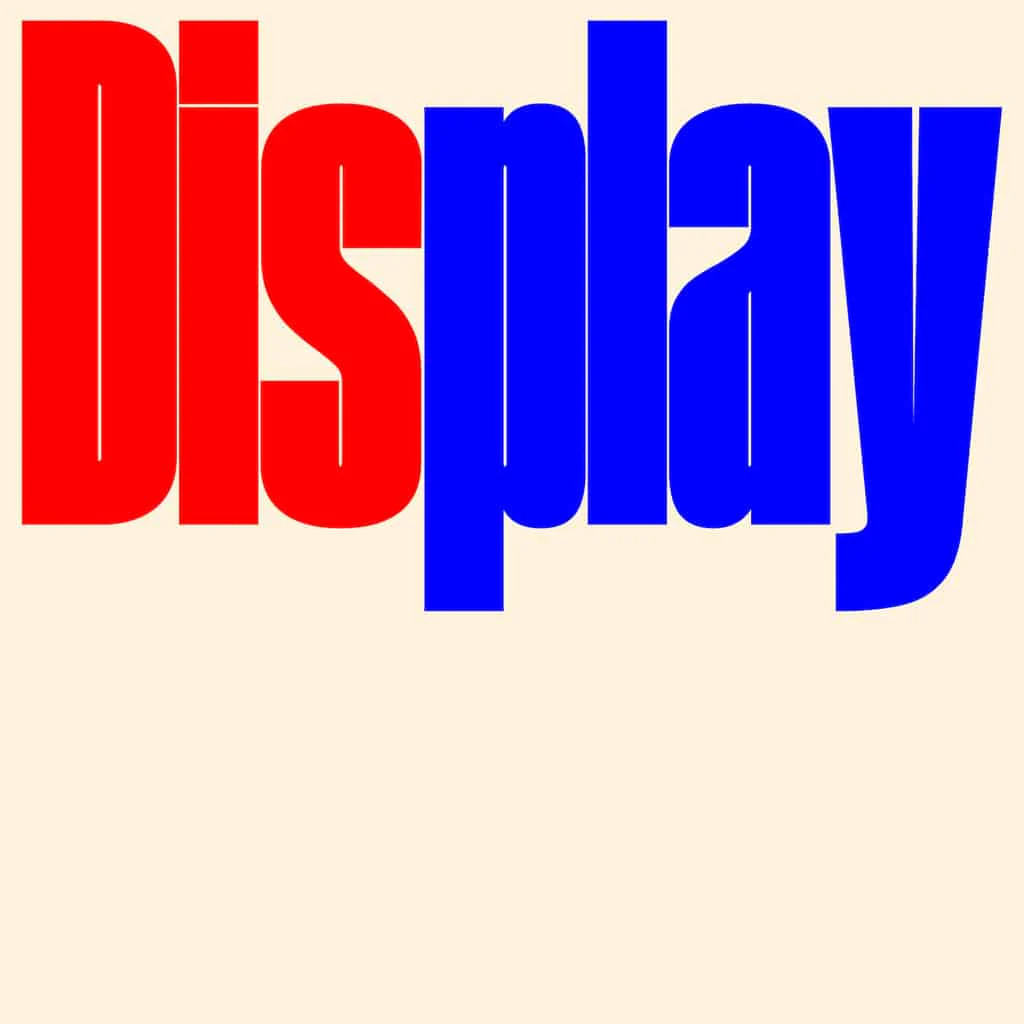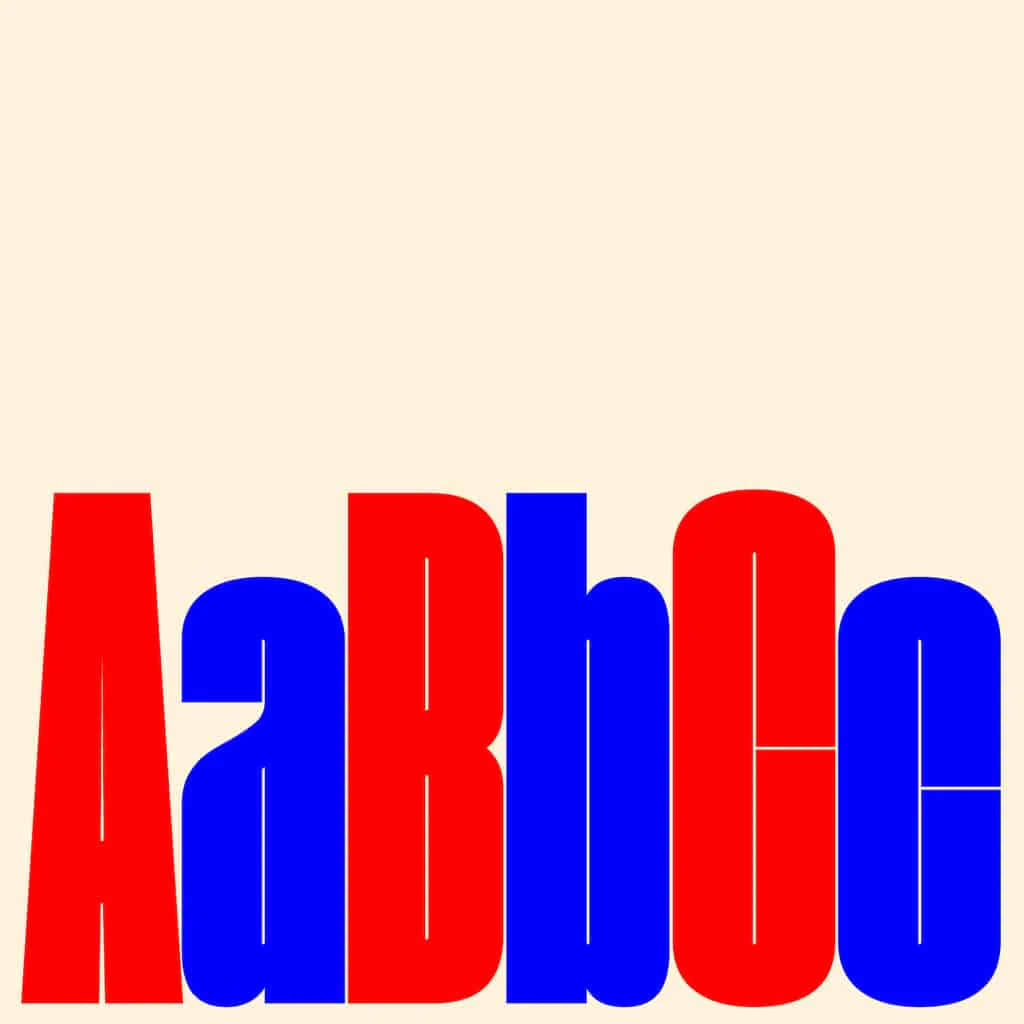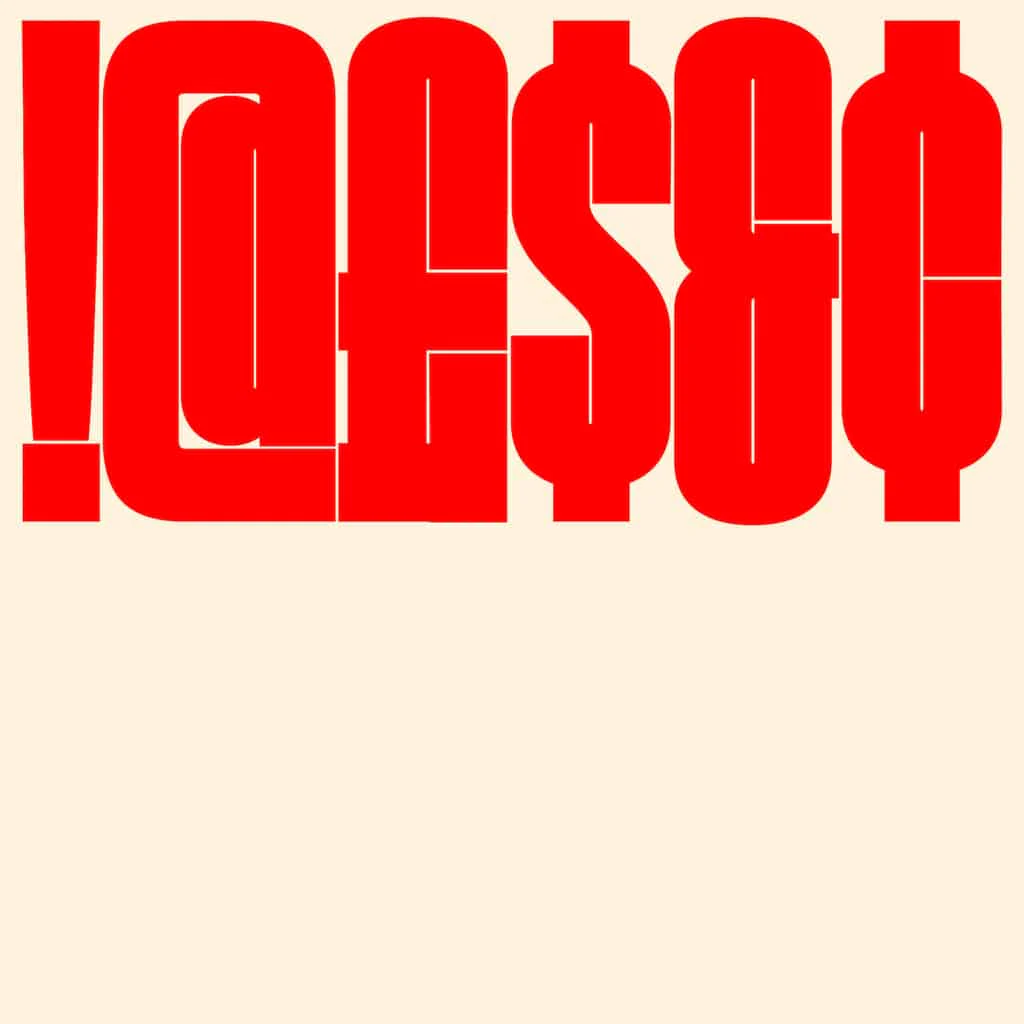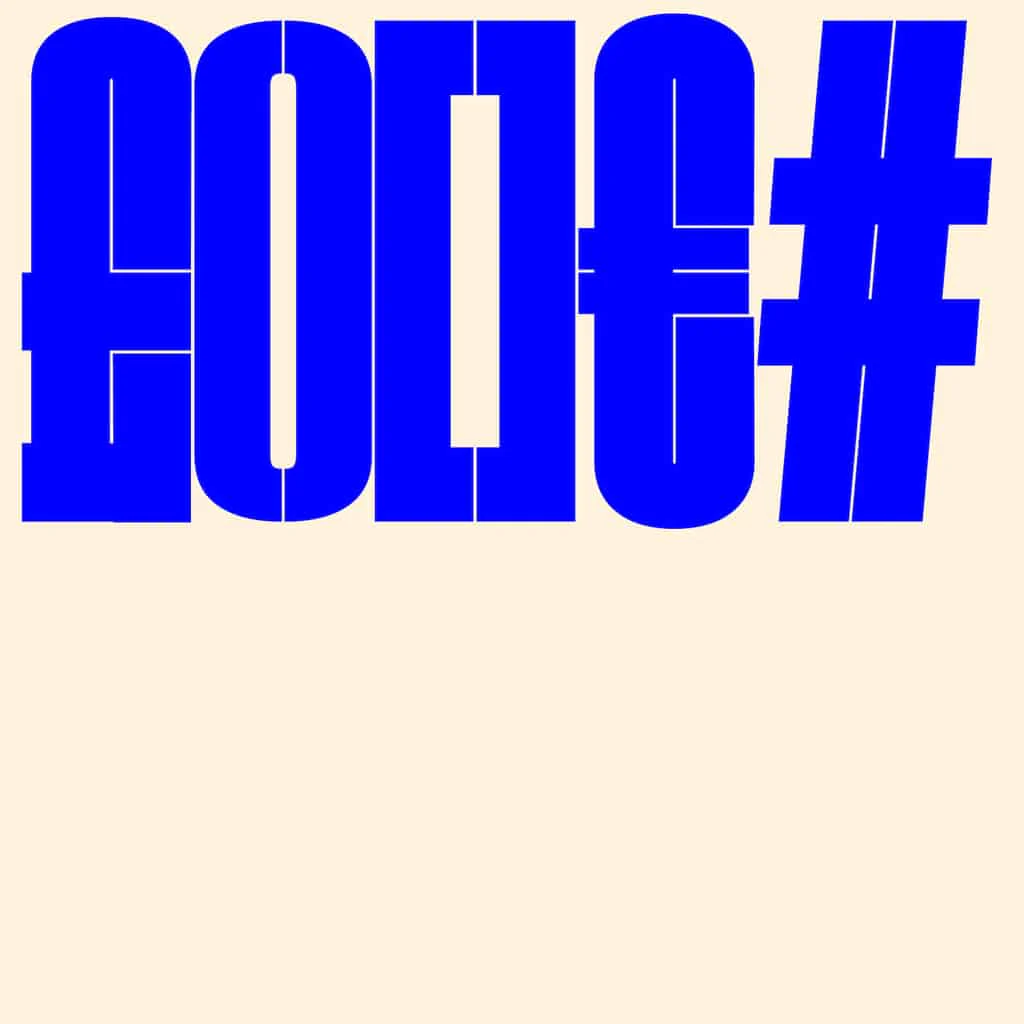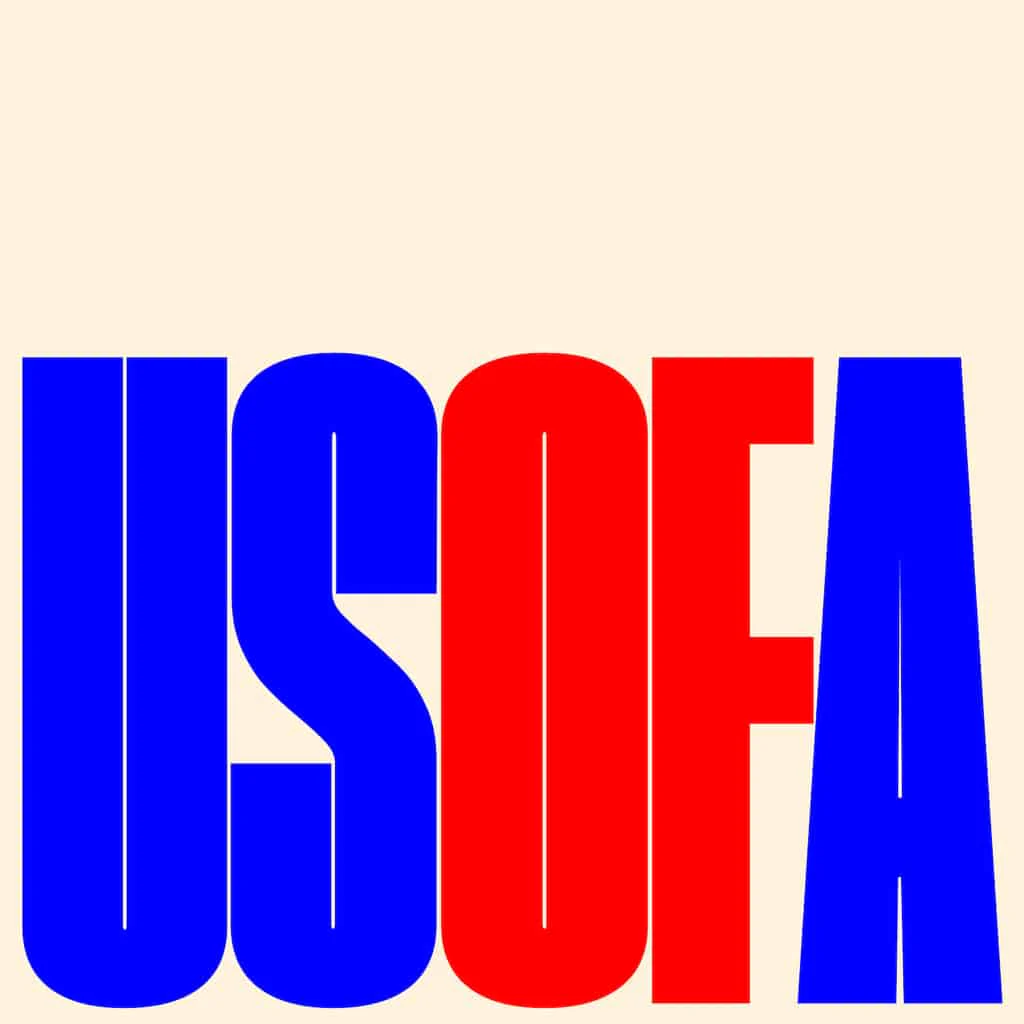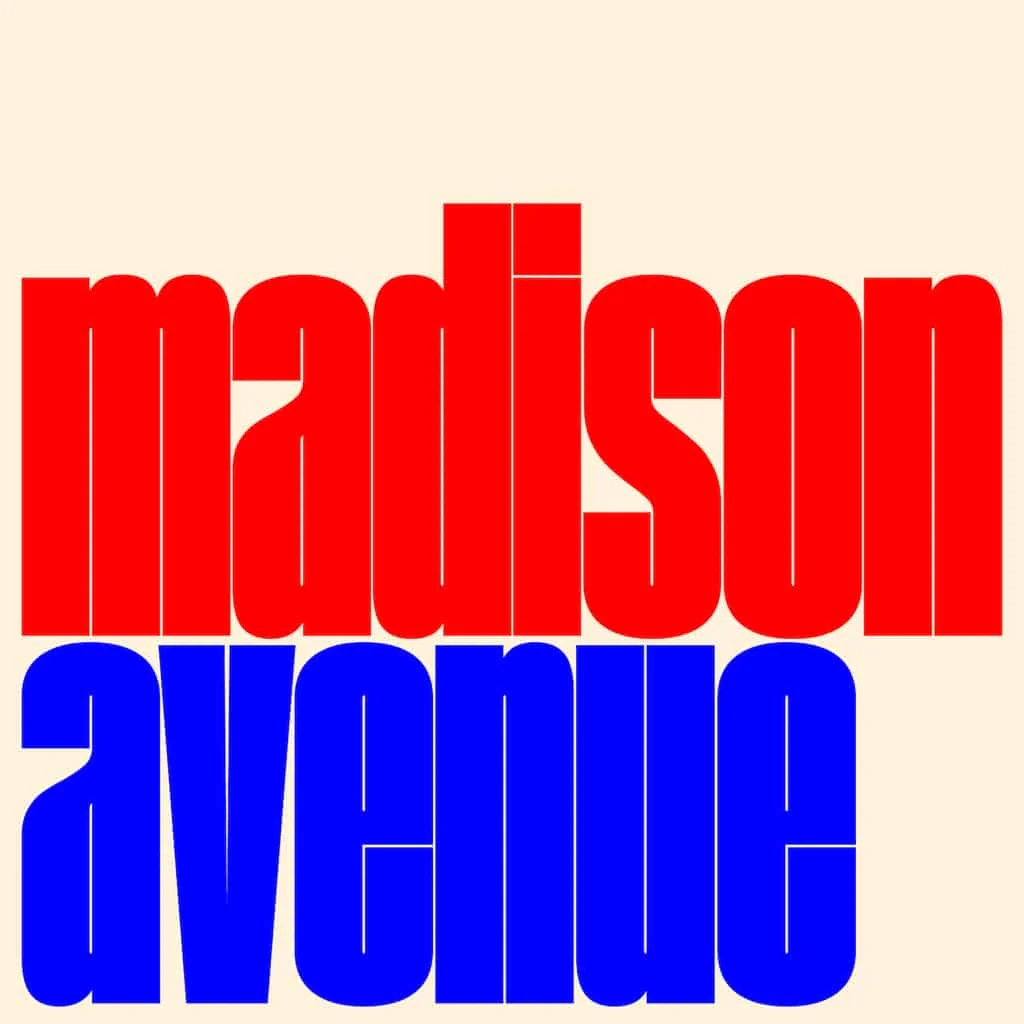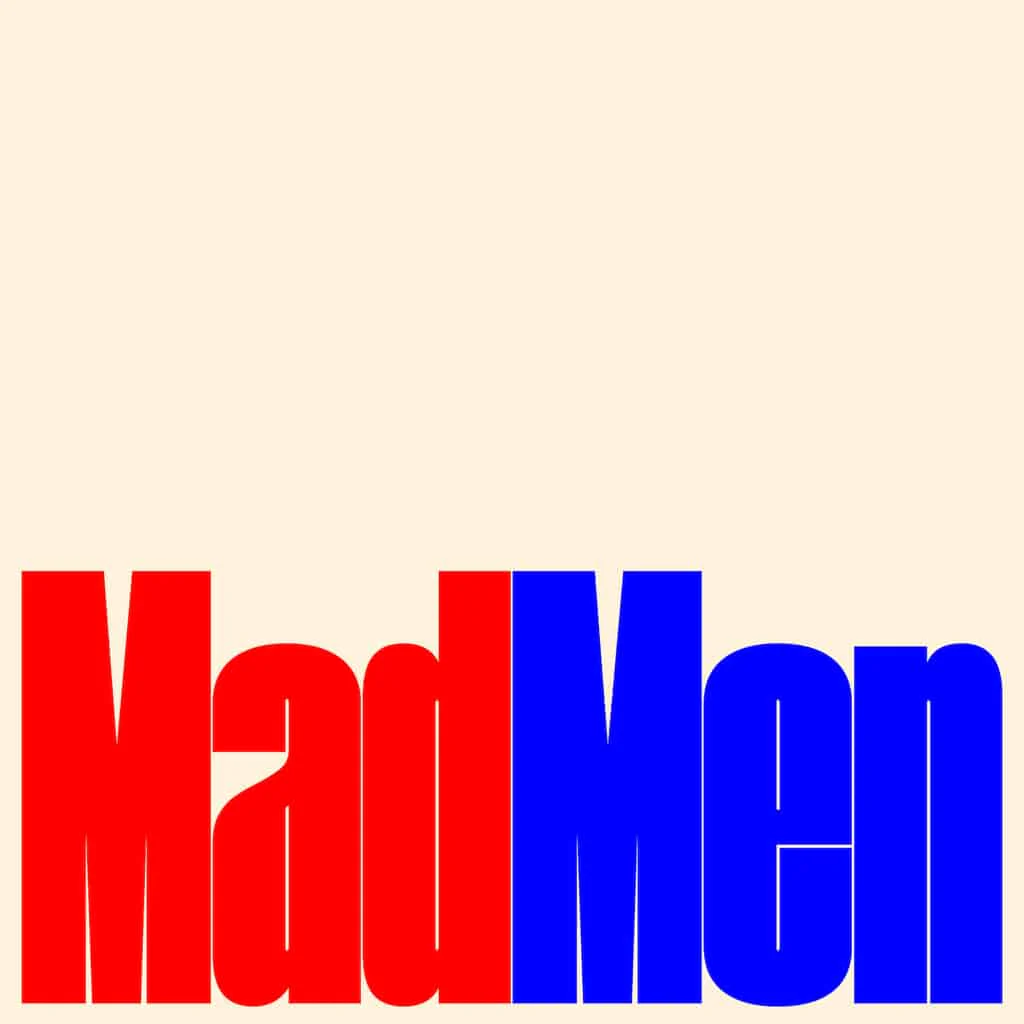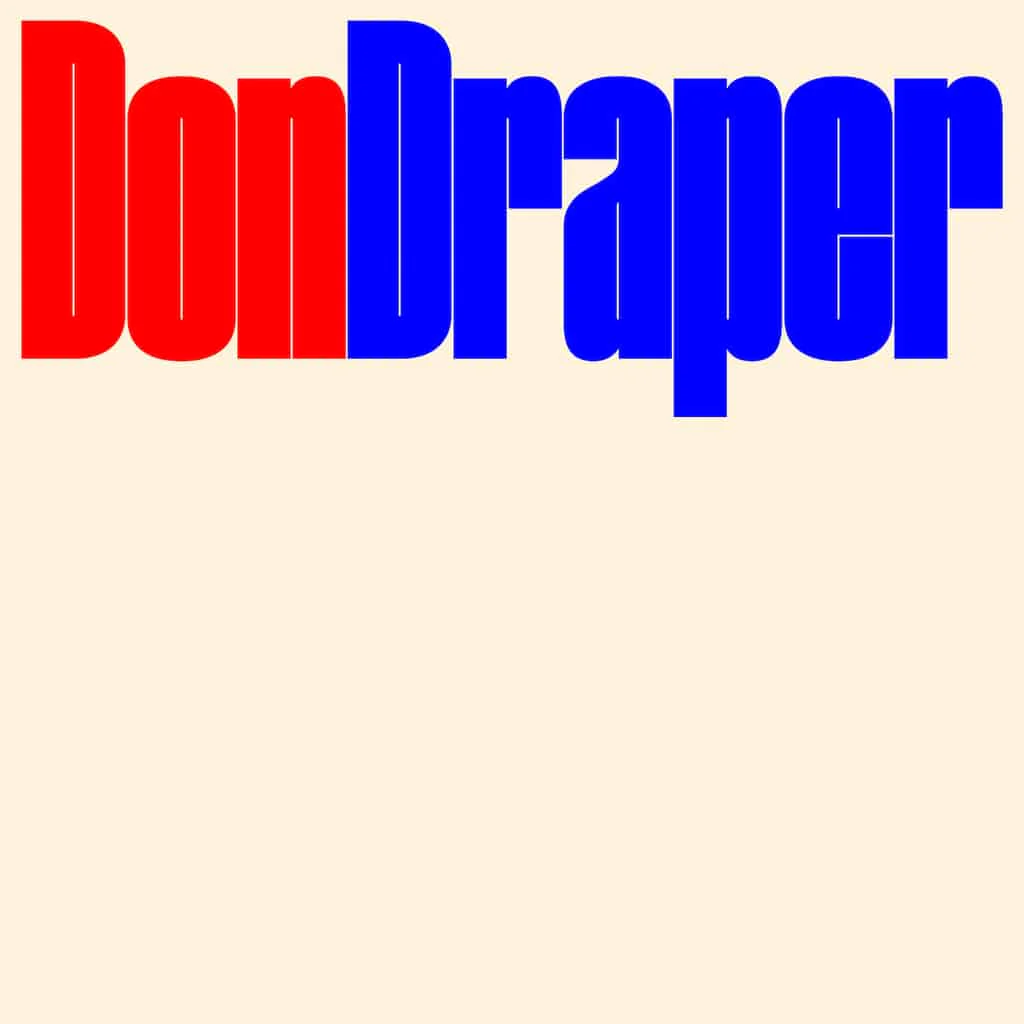
Quench Variable
Quench is an audaciously condensed display typeface characterised by tight counters and compact character spacing. Its playful and distinctive aesthetic immediately captivates attention, making it an exciting choice for creating bold typographic statements.
As a variable font, Quench offers unparalleled flexibility, effortlessly transitioning between extreme condensation and more open spacing to suit diverse design needs. Whether you're crafting a sleek logo or commanding editorial layout, Quench promises to inject vibrancy and impact into your typography with its dynamic range and eye-catching appeal.